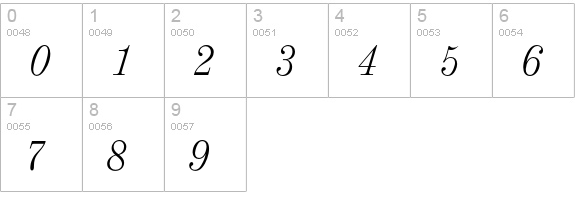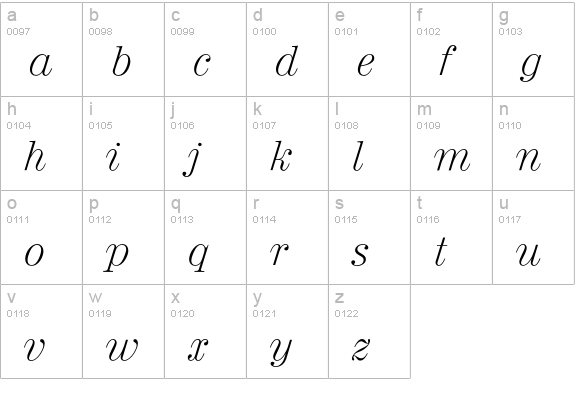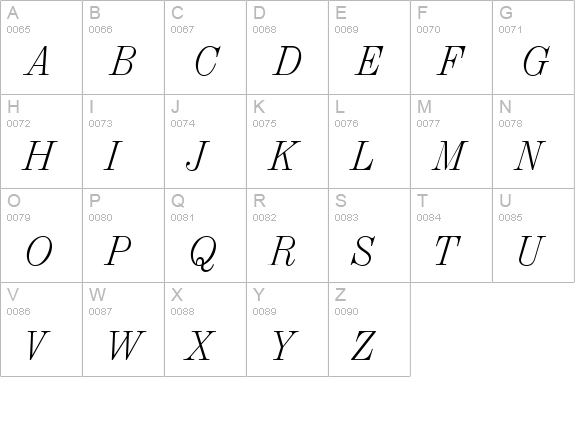
Valencia-XlightIta Font Details
Valencia-XlightIta is a stunning and elegant font that exudes sophistication and grace. Its delicate and slender letterforms are meticulously crafted, making it perfect for projects that require a touch of finesse. This font effortlessly combines the traditional calligraphic elements with a modern twist, resulting in a truly unique and eye-catching typeface. Valencia-XlightIta is not only aesthetically pleasing, but it also offers exceptional legibility, ensuring that your message is conveyed effortlessly to your audience. Its subtle curves and graceful strokes create a harmonious flow, allowing the text to effortlessly captivate the reader's attention. What truly sets Valencia-XlightIta apart is its versatility. It is equally well-suited for both print and digital media, making it a valuable asset for designers across various platforms. Whether you are creating elegant wedding invitations, sophisticated branding materials, or refined editorial layouts, this font will effortlessly elevate your designs to new heights. One of the best aspects of Valencia-XlightIta is that it is freely available to download at FontsMarket.com. This means that you can enjoy the beauty and versatility of this font without any cost. So, whether you are a professional designer or a hobbyist, you can easily access and utilize this font to enhance your creative projects. In conclusion, Valencia-XlightIta is a captivating and versatile font that combines elegance with modern design elements. Its free availability at FontsMarket.com ensures that anyone can enjoy the beauty and functionality of this remarkable typeface. Don't miss out on the opportunity to elevate your designs and make a lasting impression with Valencia-XlightIta.